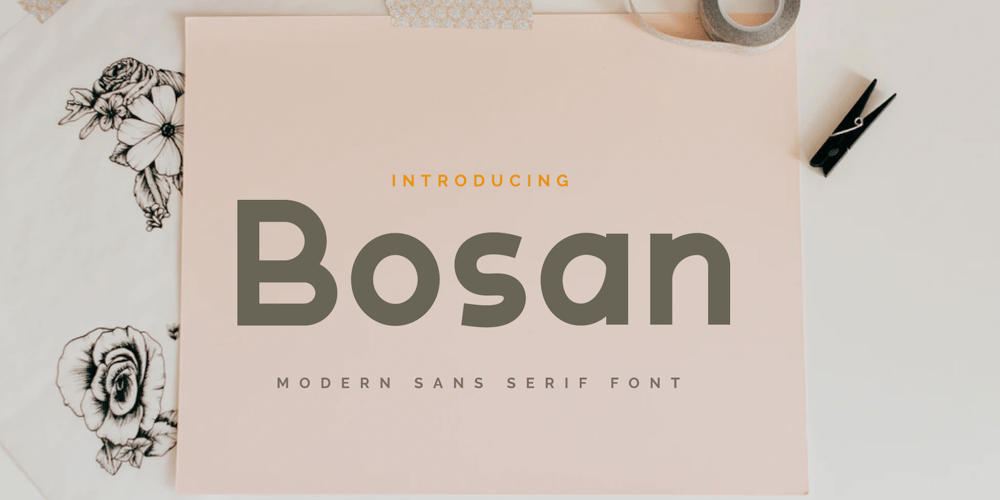
Bosan Font Family was designed by Rozikan and published by Twinletter. Bosan contains 3 styles and family package options. Introducing Bosan, our newest san serif that offers beautiful typography for your project needs. type of font that is relaxed and elegant when used both for title words, sentences and other writing. will seem comfortable to look at when reading the contents of the message you want to convey.This font is very suitable as text with displays for various kinds of branding, advertisements, posters, banners, packaging, news headlines, magazines, websites, logo design, banners, social media design and of course you can use a lot more.